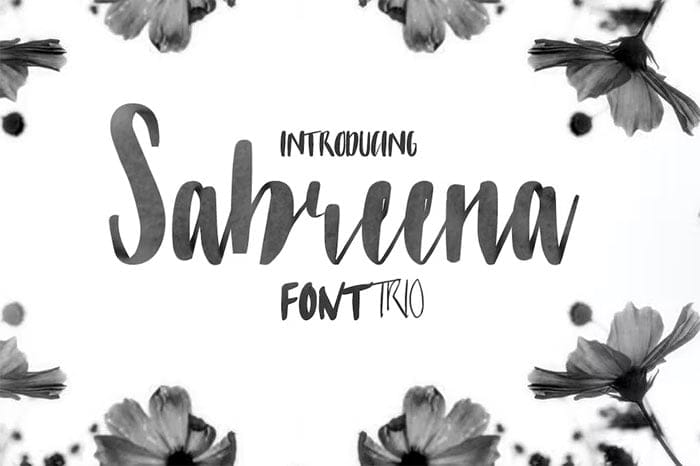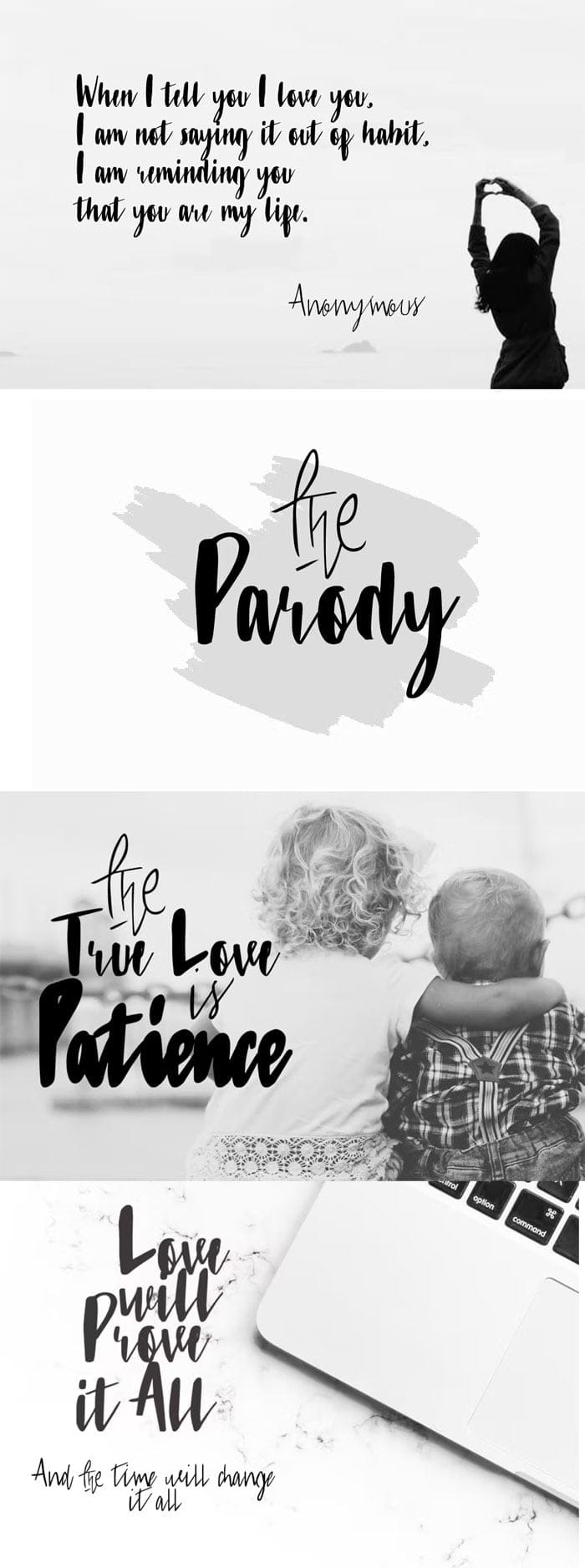
Sabreena 3 in 1 Font
Introduction, “Sabreena Script” font, after a long time not upload new item, Ovoz Creative finally start to create new font. Scripted with a feminine touch and beauty, this font is great for wedding invitations, congratulatory art, or anything about beauty.
This font has more advantages like special opentype, alternate. and so many glyph option so you don’t confuse to choose word or letter. In a few words, this font has adventures, for example more unique and unusual character “The”
Available in uppercase, lowercase, symbol, number, punctuation and including so many variant of glyph. Also suitable for t-shirts, jackets, hats or anything that has to do with goods.